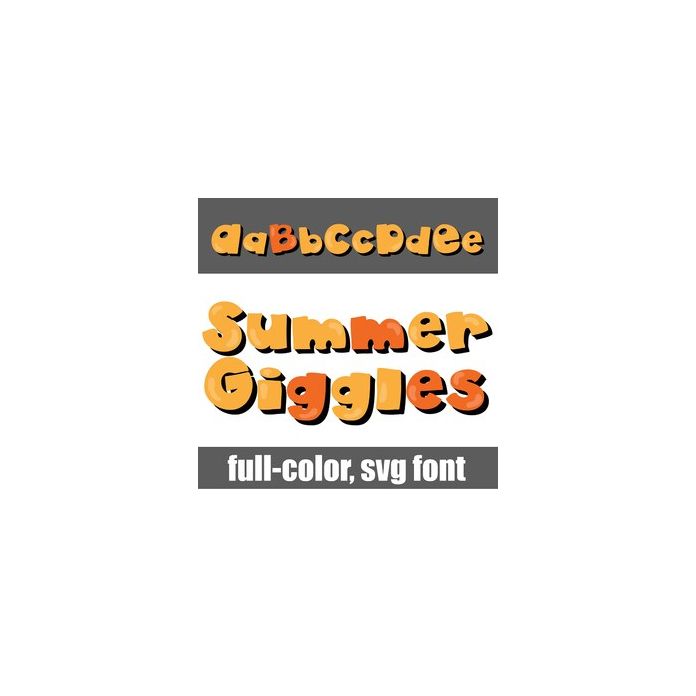
This full-color font features warm yellow and orange lettering with heavy black shadows. There is a second version of each uppercase letter in a different color with a big swoosh available through Silhouette's glyph map.